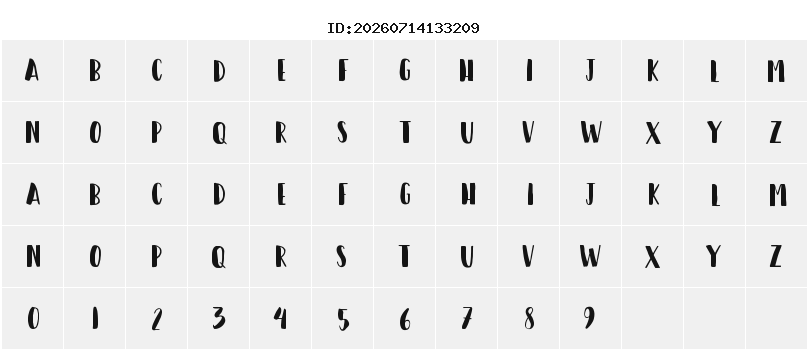
Happy Camper Preview
• Font Name: Happy Camper
• Full Font Name: Happy Camper Regular
About Happy Camper.ttf
Happy Camper.ttf is a modern, elegant sans-serif font designed for ultimate readability and visual harmony. Perfect for branding, headlines, web design, and print materials.